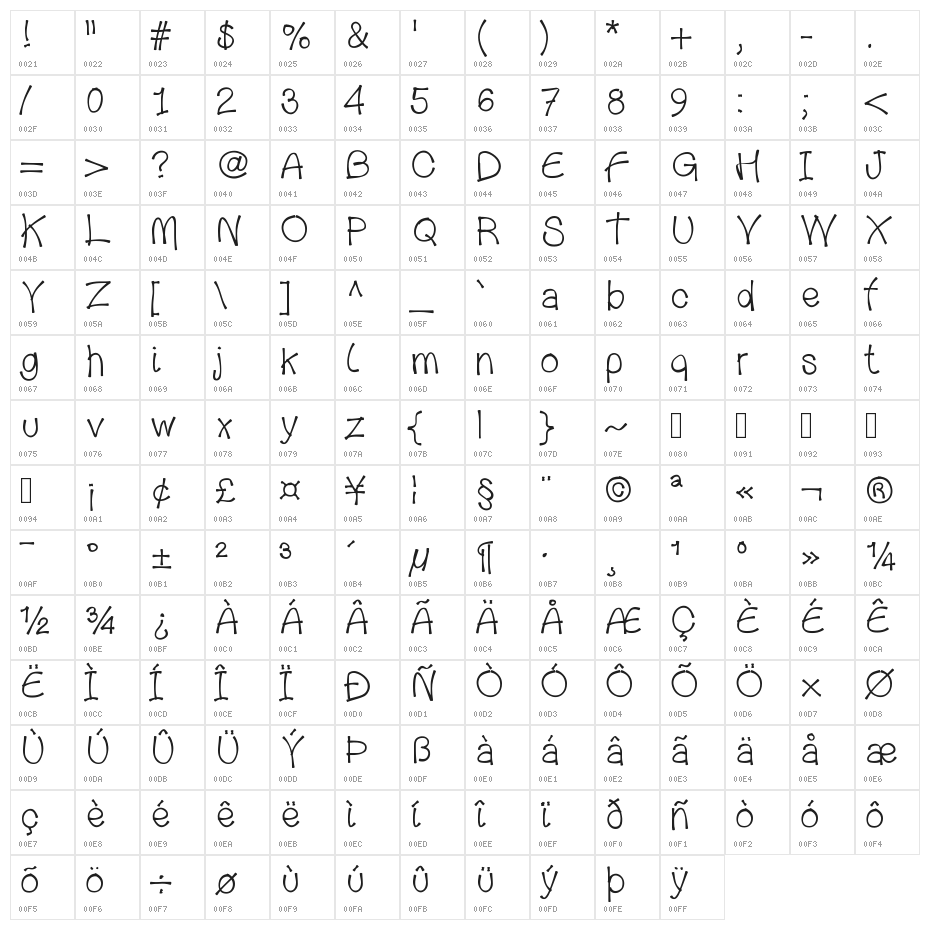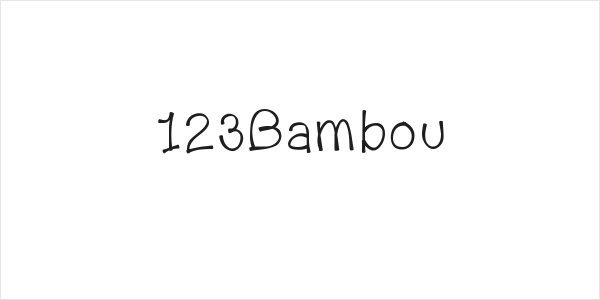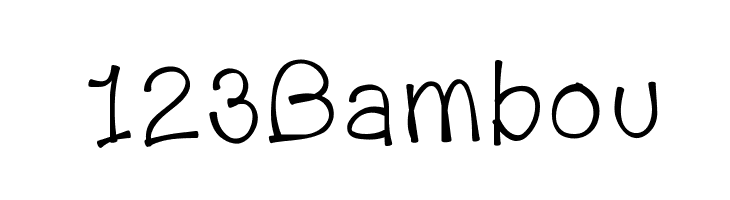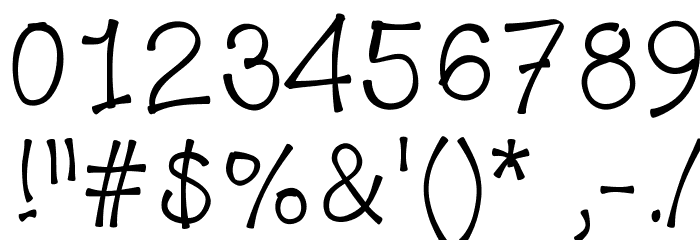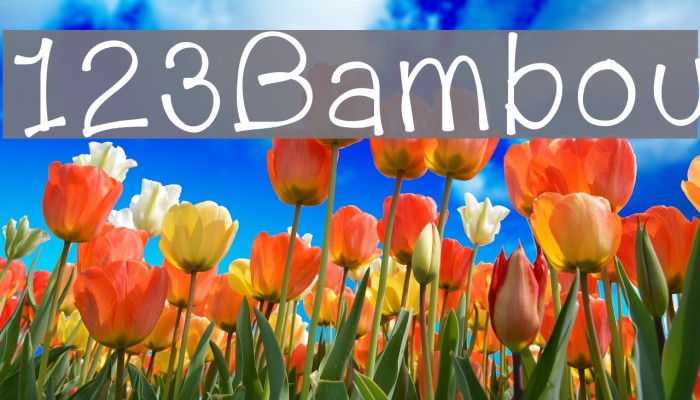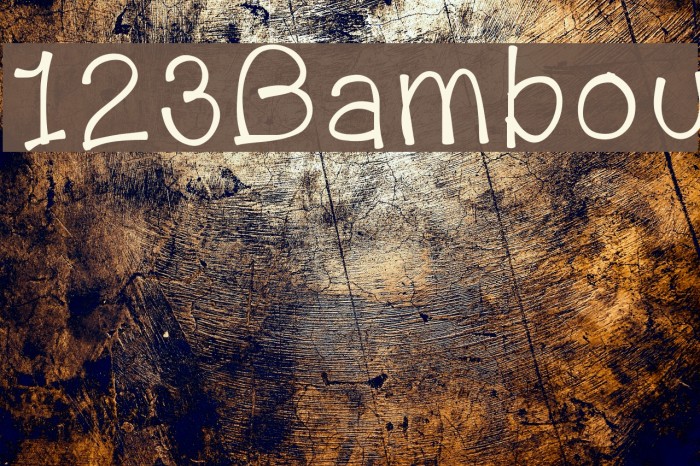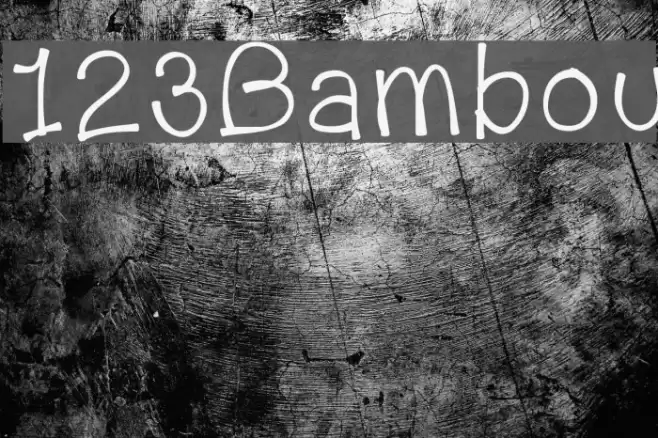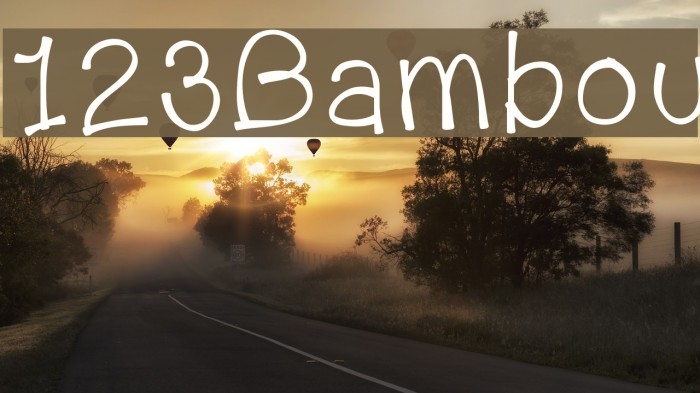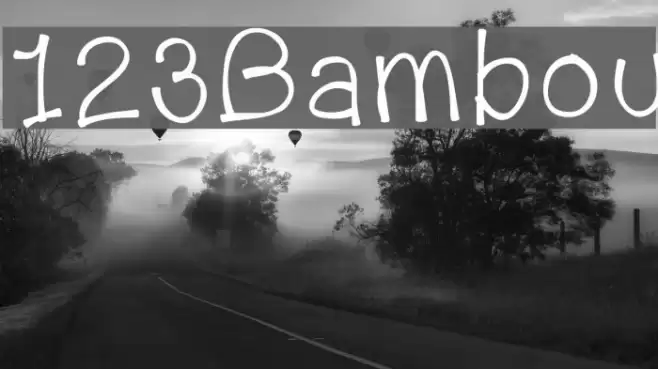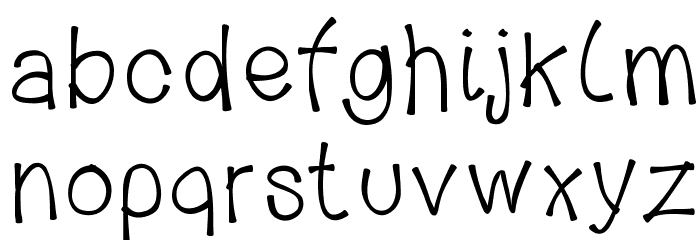
123Bambou Font
123Bambou Description
This playful and whimsical font features a handwritten style with a casual and informal appearance. The characters are slightly irregular, giving it a charming and approachable feel. The strokes are uneven, adding to the hand-drawn aesthetic, and the overall look is reminiscent of a child's handwriting or a casual note. The font includes both uppercase and lowercase letters, numbers, and a variety of special characters, making it versatile for different uses. Its unique style is perfect for projects that require a personal touch or a fun, lighthearted vibe.
| Overall Style | Casual, Playful |
| Use Case | Headlines, Informal text, Creative projects |
| Proposed Projects | Ideal for children's books, greeting cards, personal notes, and playful branding. |